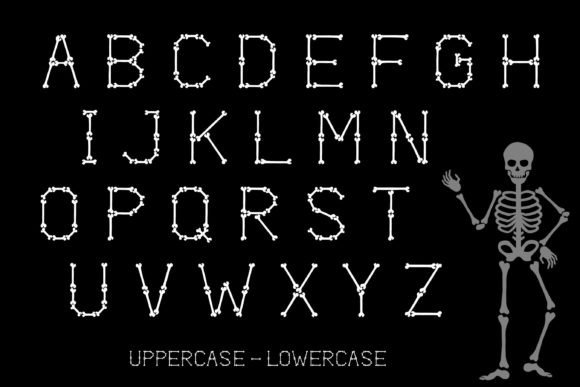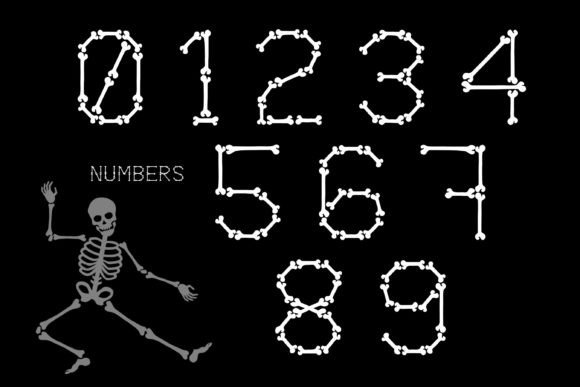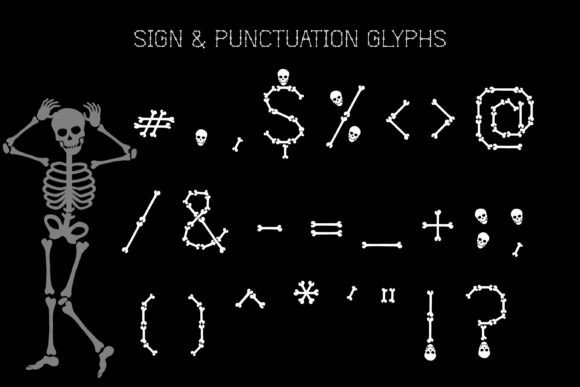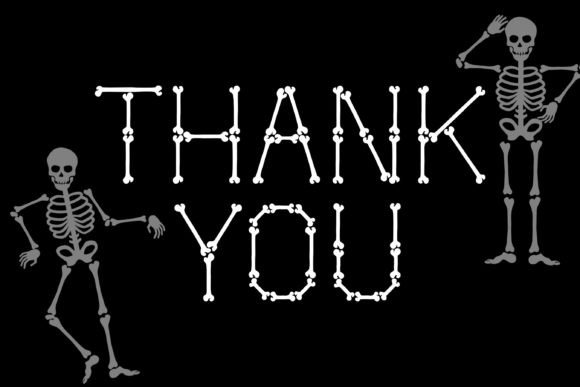
Spooky Charm for Your Designs: Boneya Font
As a designer, you’ve probably found yourself staring at a blank canvas, searching for the perfect font to bring your project to life. It’s that moment when the clock strikes midnight, and the pumpkins are carved, when you realize your design needs a dash of spooky charm. You start browsing through fonts, and that’s when you stumble upon the perfect addition – the Boneya Font.
This cool and fun display font is designed to give your Halloween-themed projects a thrilling twist. With its spooky look, it’s the perfect companion for any designer looking to create an eerie atmosphere. The Boneya Font is a valuable asset for designers who want to add a touch of darkness and mystery to their work. Whether you’re creating a haunted house flyer or a spooky website, this font is sure to make your design stand out.
- Unique Characteristics: The font’s distinctive design features a unique blend of traditional and modern elements, with intricate details and ornate flourishes that set it apart from other fonts.
Boneya Font Review
Overall, I think the Boneya Font is an interesting choice for designers. Here’s what I like about it:
- ✨ Unique character set: The Boneya Font has a distinctive character set that’s perfect for adding a touch of whimsy to your designs. It’s great for projects that need a bit of personality.
- ✨ Versatile: Despite its quirky nature, the Boneya Font is surprisingly versatile and can work well in a range of contexts, from branding to editorial design.
- ⚠️ Limited legibility: In some cases, the Boneya Font’s unique character set can make it difficult to read, especially at smaller font sizes. This can be a problem if you’re working on a project where legibility is crucial.
- ⚠️ Limited language support: The Boneya Font may not support all languages, which can limit its use in global design projects.
Overall, I think the Boneya Font is a great choice for designers who want to add some personality to their work. While it may have some limitations, its unique character set and versatility make it a great option for the right project.
Boneya Font is perfect for:
- Quirky and playful designs